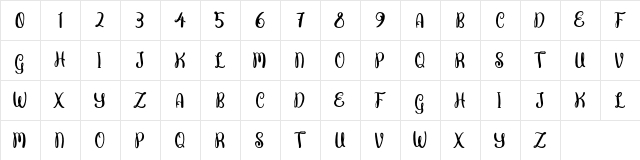
Complete Butterfly FREE Regular glyph index. Displaying only characters natively supported by Butterfly FREE Regular font.
Butterfly FREE is a composed and adaptable typeface that performs quietly and consistently across a wide range of design contexts.